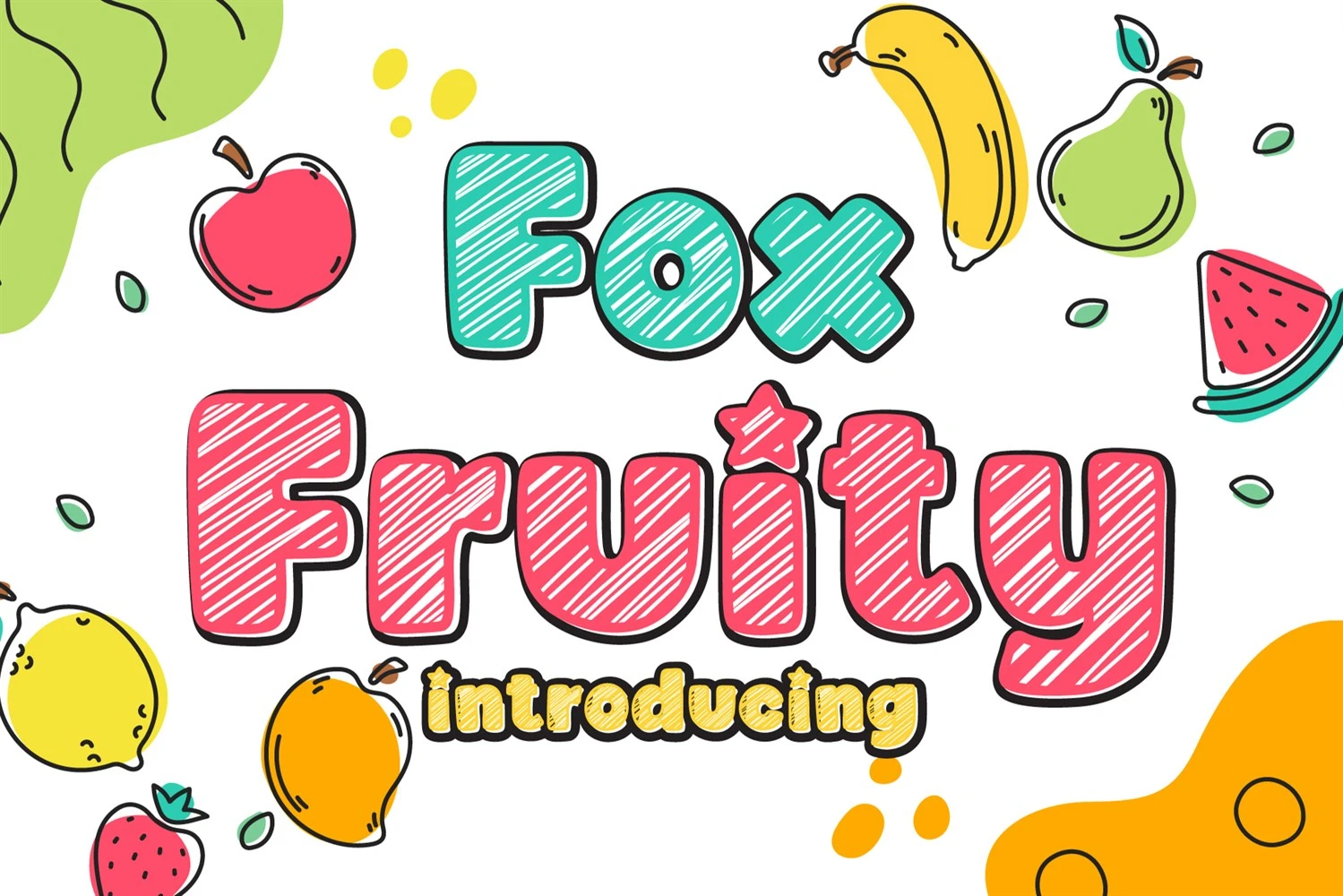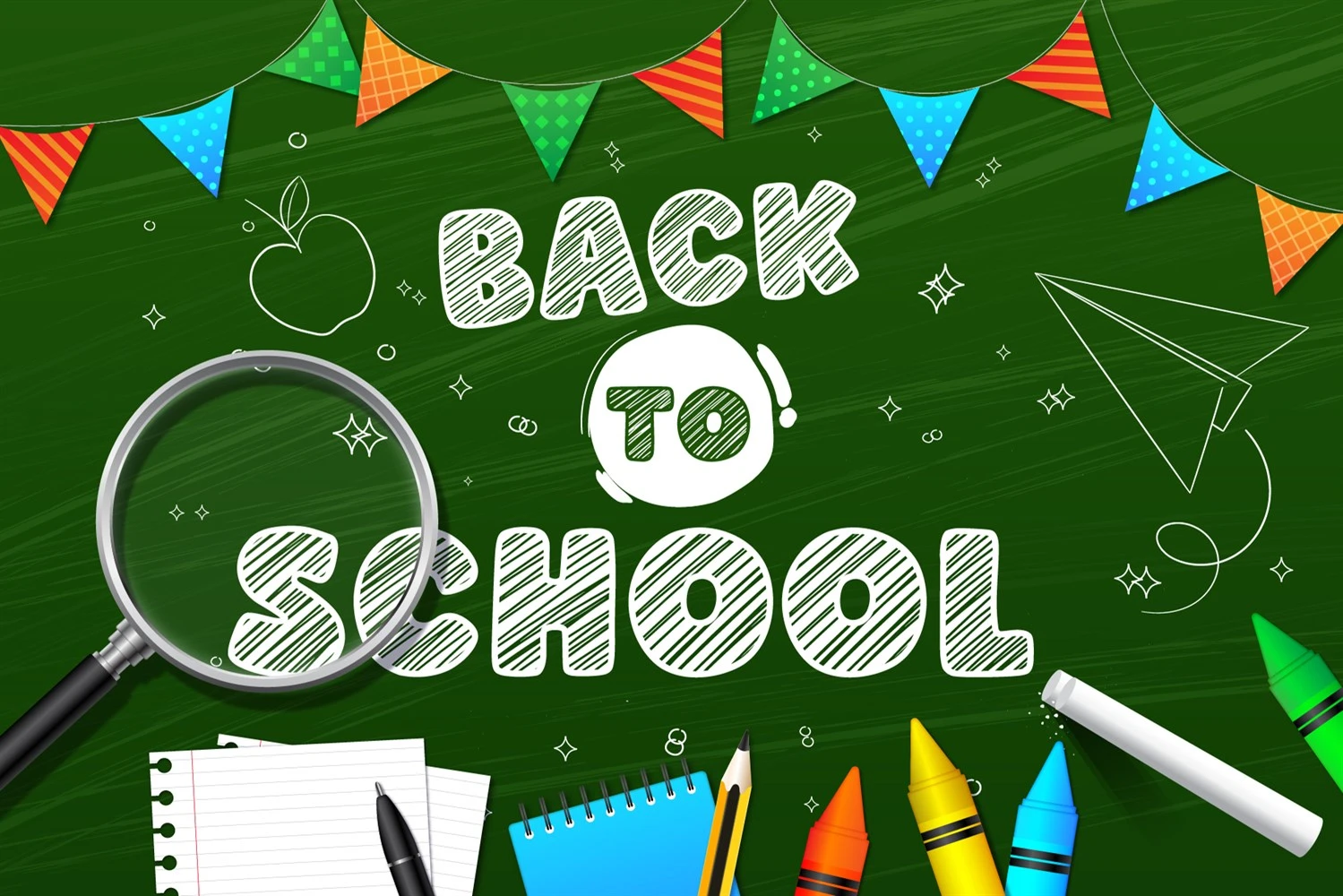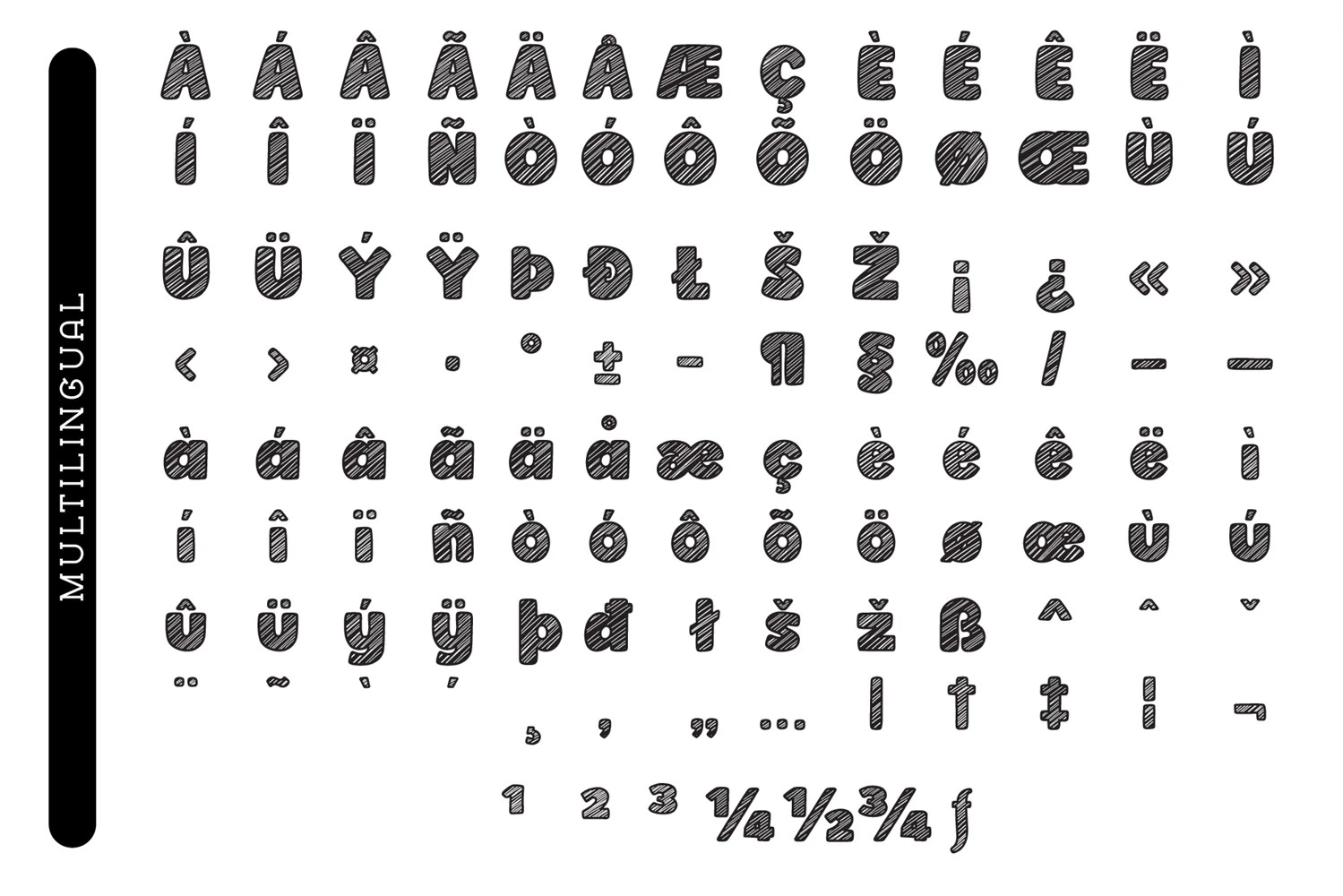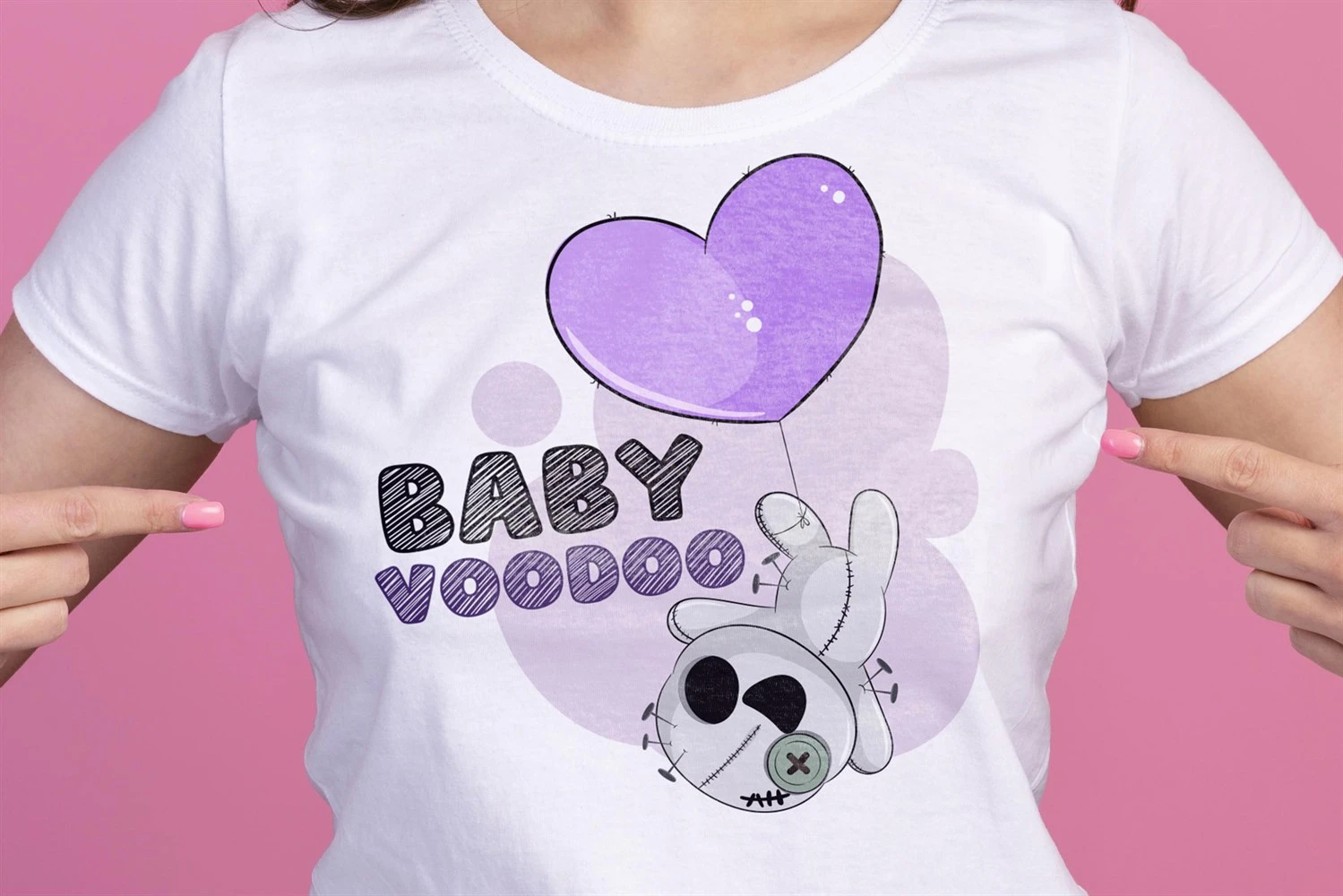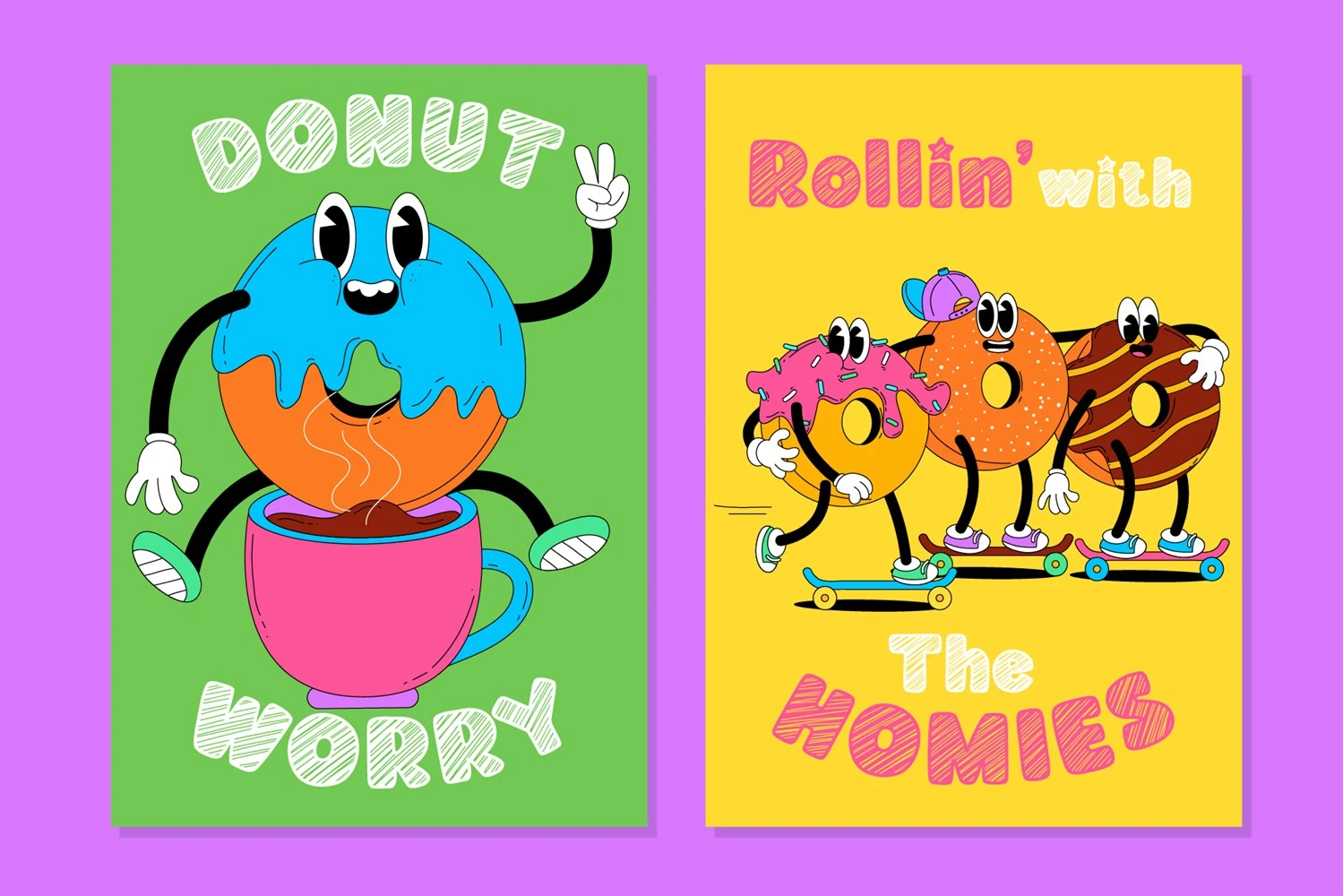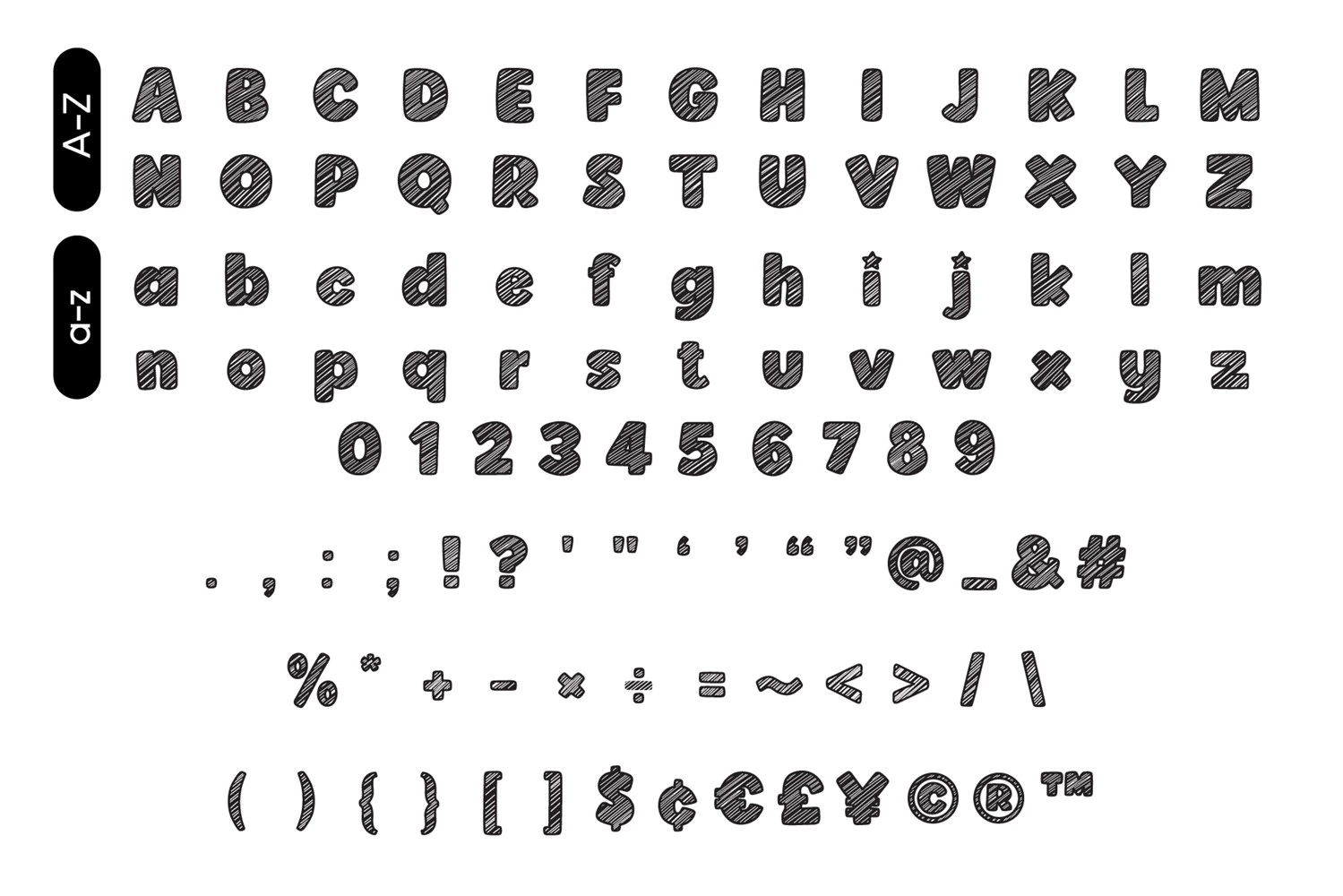
Fox Fruity is a cute and fun display font suited for kids, playground, or school themes. Whether youre using it for crafting, playful restaurant menus, digital designing, presentations, or greeting card making, its perfect!